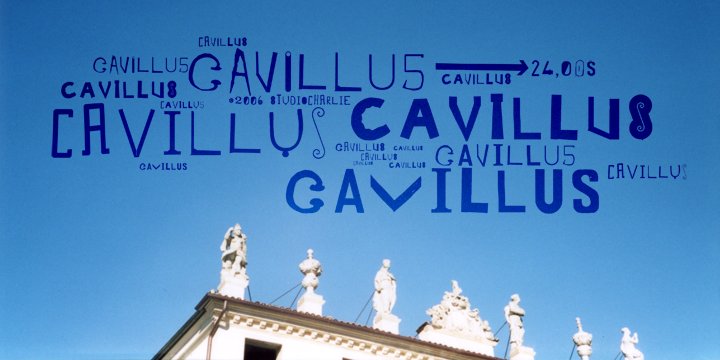
Cavillus
Cavillus is an uppercase-only family. Every letter is hand-designed in a different style so you can write words combining 4 different designs for every letter; two from the regular and two from the bold.